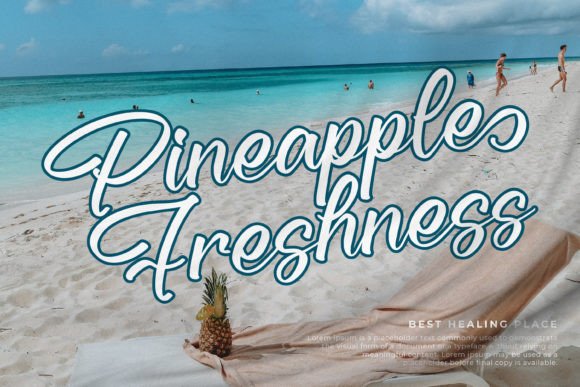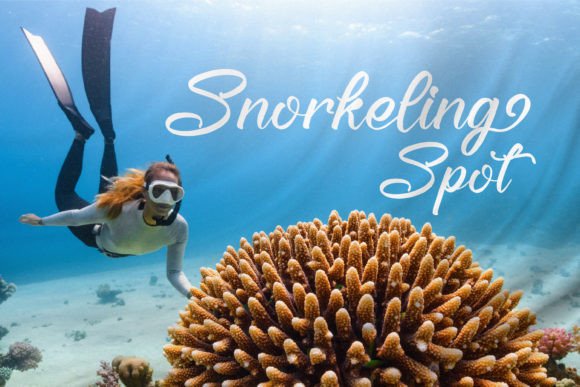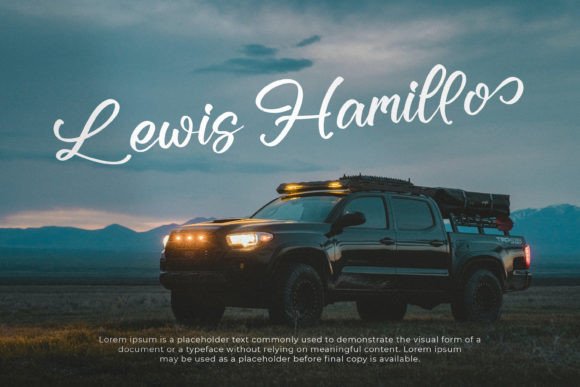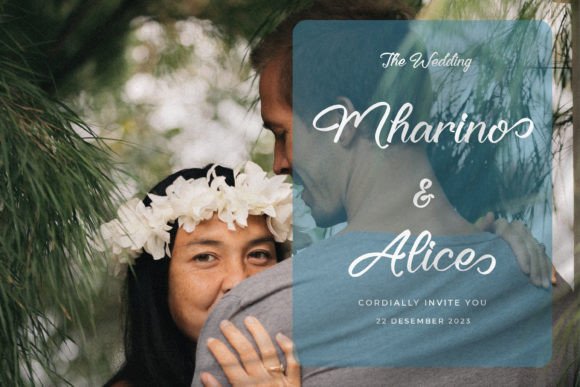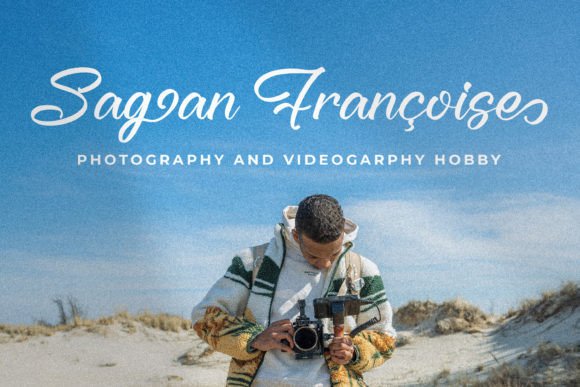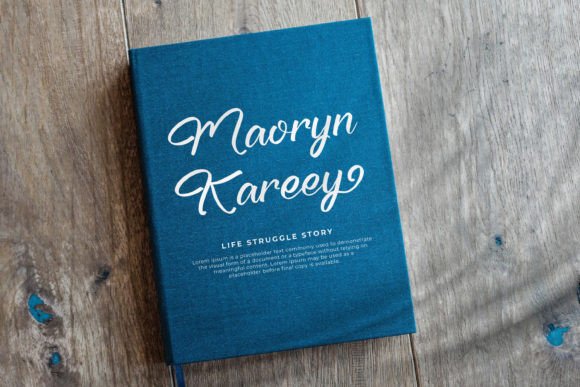
Introduction to Kellanota Font
Have you ever found yourself staring at a blank page, struggling to bring your creative vision to life? You’ve got a concept, a dream, and a burning desire to make it real. But somehow, it’s just not clicking. That’s where the magic of typography comes in – a well-chosen font can be the missing piece that elevates your project from ordinary to extraordinary. Enter the Kellanota Font, a stunning handwritten font that’s about to become your new favorite design companion.
With its elegant calligraphic influences and fresh, contemporary feel, the Kellanota Font is the perfect addition to any creative project. Whether you’re working on a design, a logo, or a social media post, this versatile font is sure to bring your ideas to life in high quality. And the best part? It’s available for free download, complete with a transparent background, making it an invaluable design resource for any creative professional.
Key Features of Kellanota Font
- Unique, elegant script font with a transparent background, perfect for adding a touch of sophistication
- Includes a full character set with over 500 glyphs, making it ideal for a wide range of creative applications
- Designed to work well at resolutions up to 300 DPI, ensuring crisp and clear text in print and digital projects
- Perfect for use in wedding invitations, quotes, and other creative projects where a beautiful, handwritten font is desired
Honest Review: Kellanota Font
I recently stumbled upon the Kellanota Font, a free download that’s gained popularity among designers for its versatility and high-quality design. As a designer myself, I was excited to put it to the test and see if it lives up to the hype.
- ✨ The font’s unique style is perfect for creative projects that require a touch of elegance and sophistication.
- ✨ The transparent background feature allows for seamless integration with images and other design elements.
- ✨ The font is highly legible, making it an excellent choice for body text and headings.
- ⚠️ The font may not be suitable for bold, statement headlines, as it can appear a bit too subtle.
- ⚠️ Some users may find the font’s style a bit too ornate for everyday use.
Overall, I’m impressed with the Kellanota Font’s design and functionality. It’s a valuable resource for designers looking to add some visual interest to their projects. While it may not be perfect for every situation, it’s definitely worth checking out – especially considering it’s a free download!
Tips for Getting the Most Out of the Kellanota Font
To get the most out of the Kellanota Font, be sure to experiment with different font sizes and styles to find the perfect look for your design. You can also use the font in combination with other design resources to create a unique and eye-catching design.
Common Use Cases for the Kellanota Font
The Kellanota Font is perfect for a range of creative projects, including social media graphics, presentations, and documents. It’s also great for use in branding and marketing materials, where a high-quality font is essential.